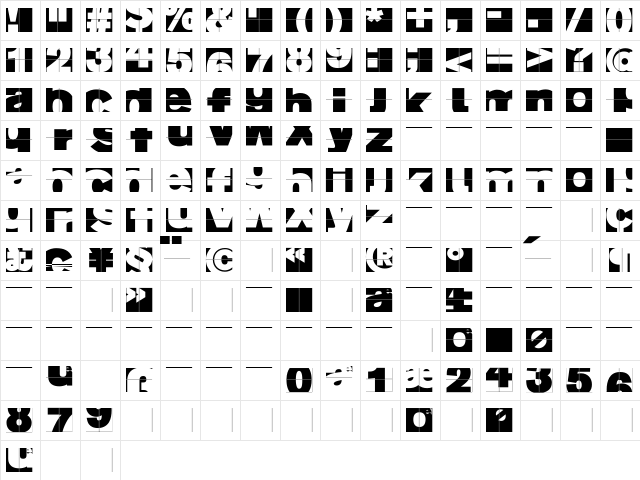
FragmentuM Regular Font Preview
FragmentuM Regular
Design Context for FragmentuM Typeface
FragmentuM is a composed and adaptable typeface that performs quietly and consistently across a wide range of design contexts.